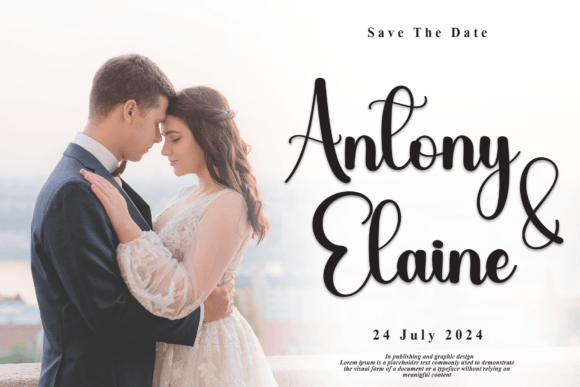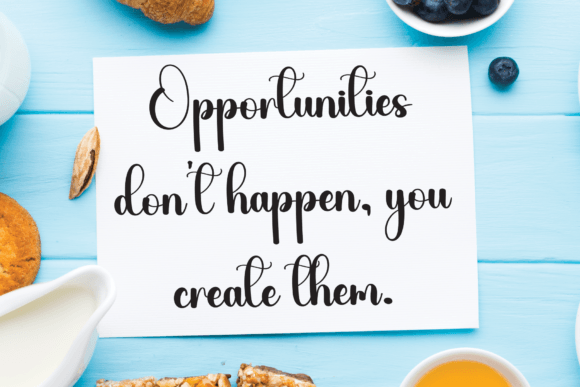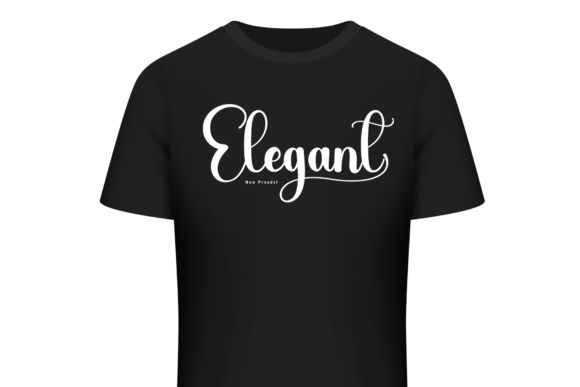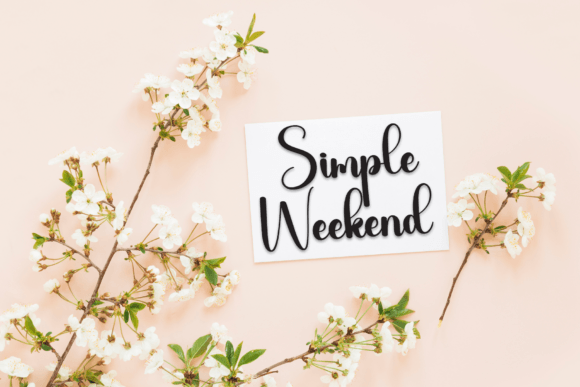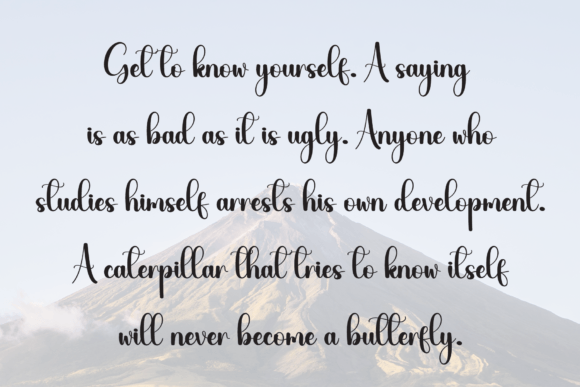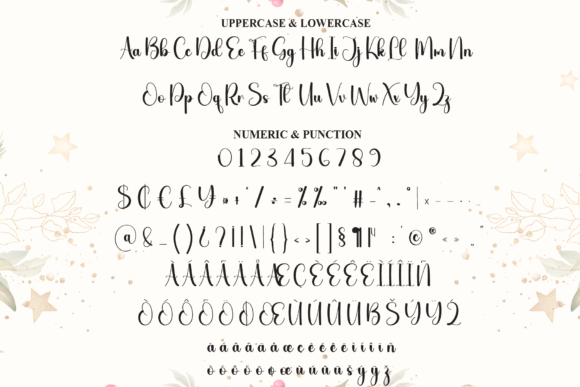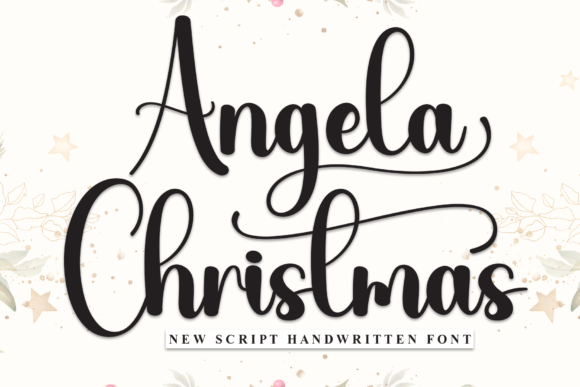
Introducing Angela Christmas Font: Elevate Your Designs with Elegance and Charm
Are you looking for a font that adds a touch of sophistication and whimsy to your designs? Look no further than Angela Christmas Font, a stylish handwritten script font that exudes elegance and charm with its flowing, graceful curves. Perfect for invitations, logos, and branding, this beautiful font is sure to bring a personal and refined touch to any design.
The Characteristics of Angela Christmas Font
Angela Christmas Font is a true showstopper, with delicate strokes that bring warmth and creativity to your projects. Its flowing script design makes it perfect for a variety of applications, from formal invitations to branding and logos. The font’s elegant and refined appearance is sure to impress, adding a touch of sophistication to any design.
Why Choose Angela Christmas Font?
So why choose Angela Christmas Font for your next design project? Here are just a few reasons why this font stands out:
• Elegant and Refined: Angela Christmas Font features a sophisticated and refined design that is sure to elevate any project.
• Versatile: This font is perfect for a variety of applications, from formal invitations to branding and logos.
• Easy to Read: Despite its elegant and cursive design, Angela Christmas Font is easy to read, making it perfect for body text and headlines.
• Unique and Creative: With its delicate strokes and flowing curves, Angela Christmas Font adds a touch of whimsy and creativity to any design.
Using Angela Christmas Font in Your Designs
Angela Christmas Font is perfect for a variety of design applications, including:
• Invitations: Whether you’re designing formal wedding invitations or casual holiday party invites, Angela Christmas Font is the perfect choice.
• Logos and Branding: Add a touch of elegance and sophistication to your logo and branding with Angela Christmas Font.
• Stationery: Create beautiful stationery, including letterheads, notecards, and more, with Angela Christmas Font.
• Digital Designs: Use Angela Christmas Font in your digital designs, including social media graphics, blog headers, and more.
Tips for Getting the Most Out of Angela Christmas Font
Here are a few tips for getting the most out of Angela Christmas Font:
• Pair with Other Fonts: Angela Christmas Font pairs perfectly with other fonts, including serif and sans-serif fonts. Experiment with different pairings to find the perfect combination for your design.
• Experiment with Colors: Angela Christmas Font looks beautiful in a variety of colors, from classic black and white to bold and bright hues. Experiment with different colors to find the perfect look for your design.
• Use in Combination with Images: Angela Christmas Font looks beautiful when used in combination with images, including photographs and illustrations. Experiment with different image combinations to find the perfect look for your design.
Angela Christmas Font is a beautiful and elegant handwritten script font that is perfect for designers and crafters looking to add a touch of sophistication and whimsy to their designs. With its flowing, graceful curves and delicate strokes, this font is sure to bring warmth and creativity to any project. Whether you’re designing invitations, logos, or branding, Angela Christmas Font is the perfect choice.